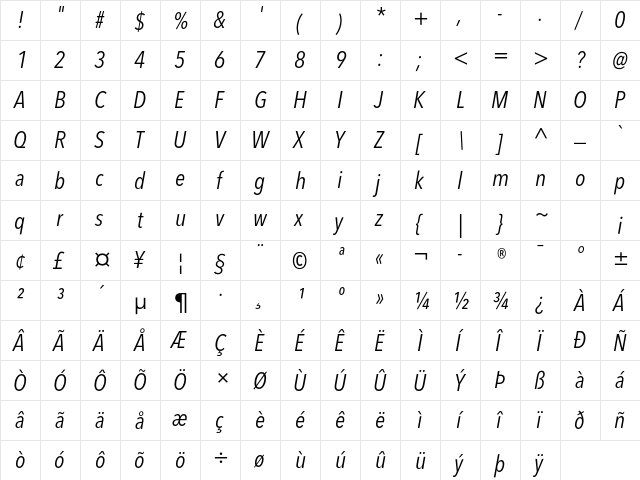
Avenir Next LT Pro Condensed Italic Font Preview
| Foundry | Linotype Library GmbH |
| Designer | Adrian Frutiger and Akira Kobayashi |
Design Context for Avenir Next LT Pro Typeface
Avenir Next LT Pro takes a measured approach to typography — its balanced proportions and neutral character make it a reliable workhorse for both digital and print work. The dynamic lean of this cut emphasises speed and emphasis in any layout. Its slender proportions lend an understated elegance to any composition. Its narrow stance lets it pack a punch even in space-constrained designs.
Pro Tip: Use Avenir Next LT Pro for emphasis, pull quotes, and subheadings where its slanted energy can add rhythm to the layout.